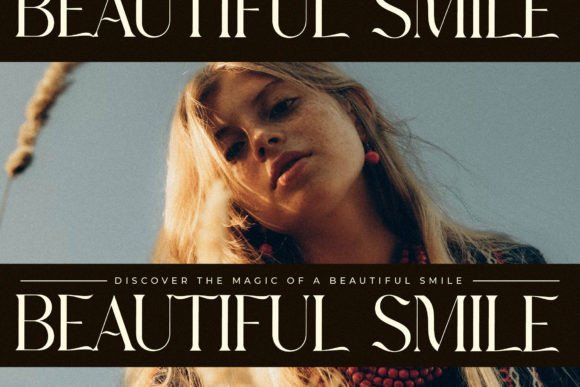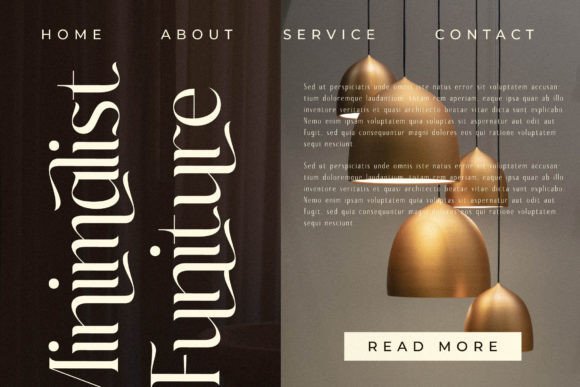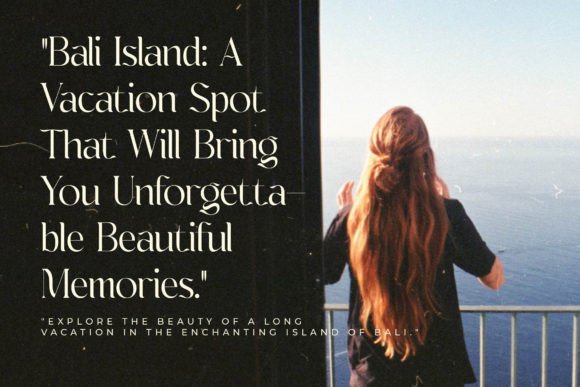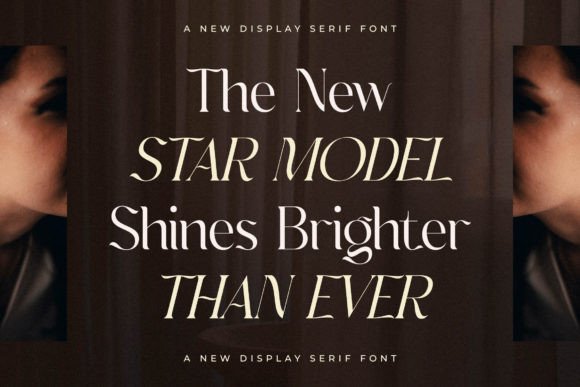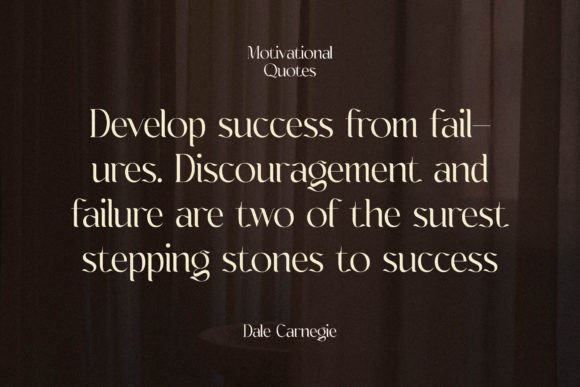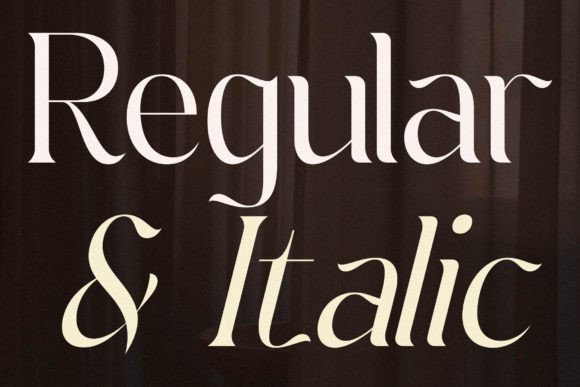
Introduction to Qelistah Font
As a designer, you’ve probably experienced that moment when you’re working on a project and the perfect font eludes you. You’ve tried countless combinations, but nothing seems to capture the essence of your creative vision. That’s where Qelistah Font comes in – a modern and classic typeface that’s about to become your new go-to design resource.
Imagine you’re working on a high-end fashion brand’s logo, and you need a font that exudes luxury and sophistication. Qelistah Font’s unique style and modern look make it the perfect choice for a wide range of creative projects, from book and movie title designs to magazine covers and lettering.
Key Features of Qelistah Font
- The font family consists of 5 styles, including regular, bold, italic, bold italic, and a unique script style for added flair.
- Its modern and elegant design makes it an excellent choice for creative projects, from typography-based art to corporate branding.
Honest Review: Qelistah Font
I recently had the chance to try out the Qelistah Font, a design resource that caught my attention with its unique and creative style. As a designer, I appreciate a good font that can elevate a project to the next level. The Qelistah Font does just that.
- ✨ Unique and creative style that sets it apart from other fonts
- ✨ Perfect for creative projects that require a touch of elegance
- ✨ High-quality design that looks great on both light and dark backgrounds
- ⚠️ Limited character set, which may not be suitable for longer texts
Overall, I’m impressed with the Qelistah Font. Its unique style and high-quality design make it a great addition to any designer’s toolkit. While it may have some limitations, it’s definitely worth checking out for your next creative project.
The Qelistah Font is a high-quality design resource that offers a unique and creative touch to your projects. With a transparent background, this font is perfect for those who want to add a stylish and modern look to their designs.
The Qelistah Font is perfect for a variety of creative projects, including graphic design, digital art, and print design. It’s also great for creating social media graphics, blog posts, and other digital content.